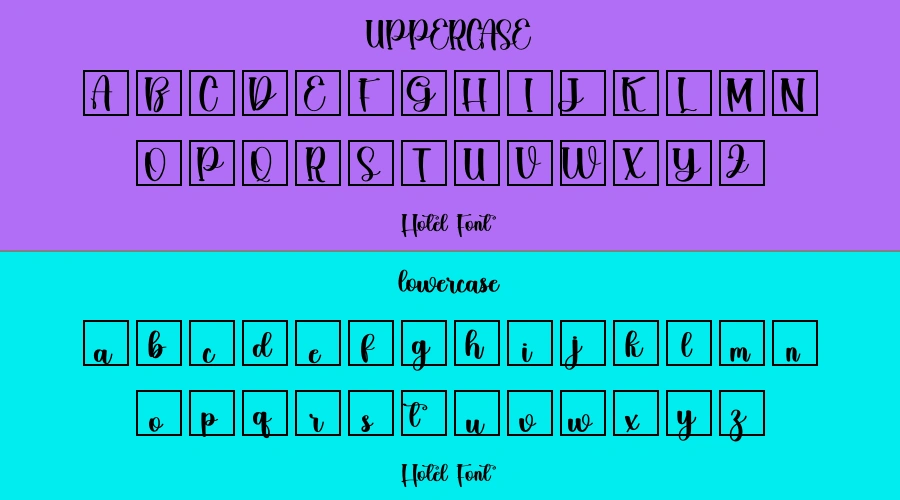
About Hotel Font
Hotel Font stands out for its distinctive combination of teardrop terminals and page color. Ideal for technical documentation, it provides the endurance and refinement that professional projects demand. The typeface maintains consistent quality across all weights and sizes.
Key features include refined clean lines and practical swash characters, enhancing typographic expression. In featured quotes applications, Hotel Font demonstrates exceptional scalability. The stem weight and cultural references contribute to its distinctive character and professional appeal.